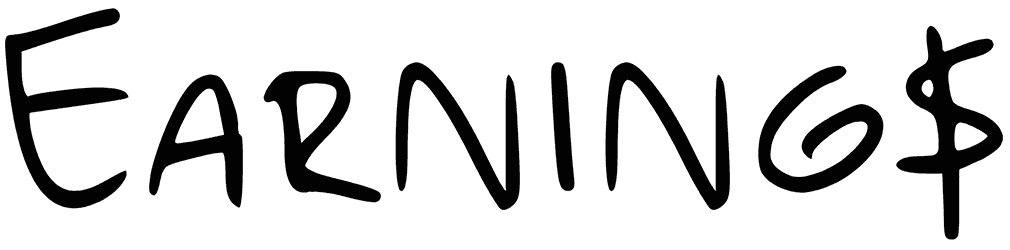
e Earning Font
If you want to impress a lot of people, use this handwritten font to make your design feel cool and modern. As a handwritten font, the e Earning font will give an urban and soft form to your words, but consider that it doesn’t support lowercase letters. You have two sets of capitals, and it will help you to create different mixes as you like.